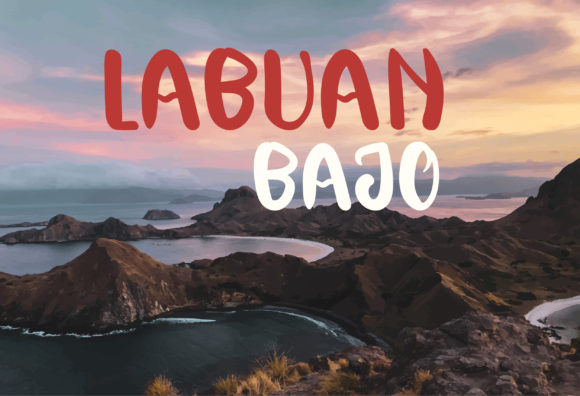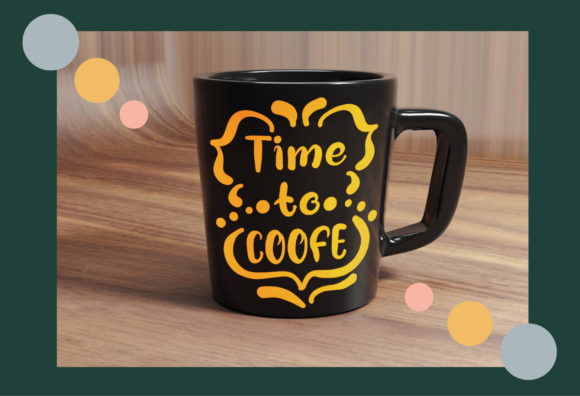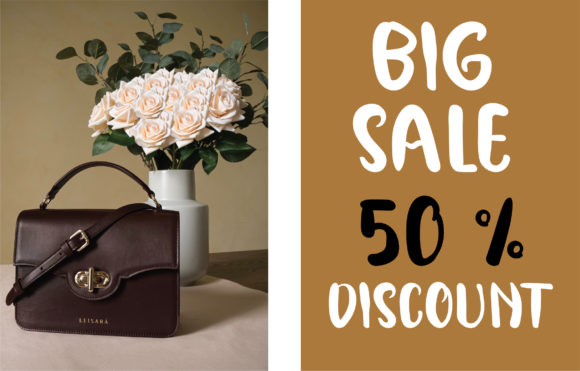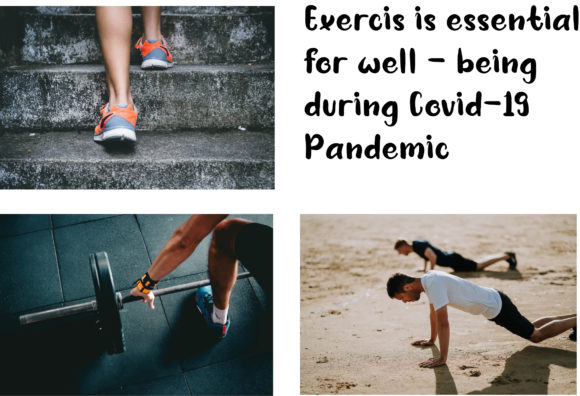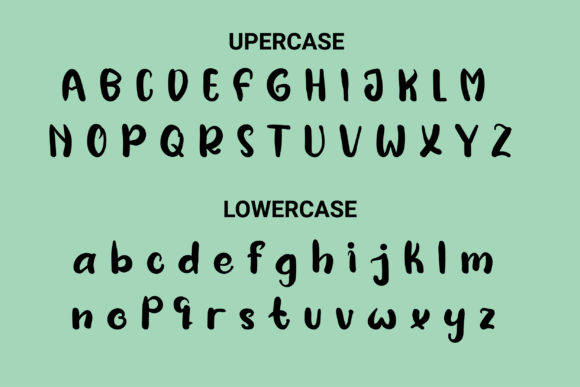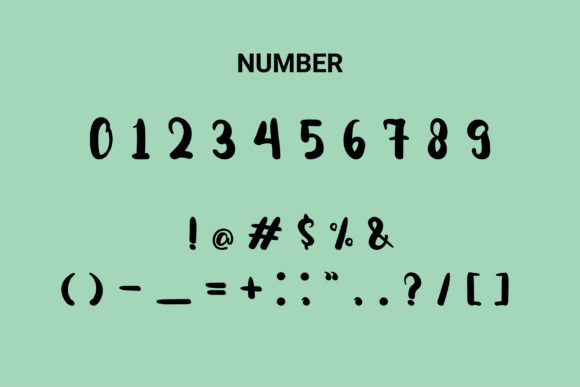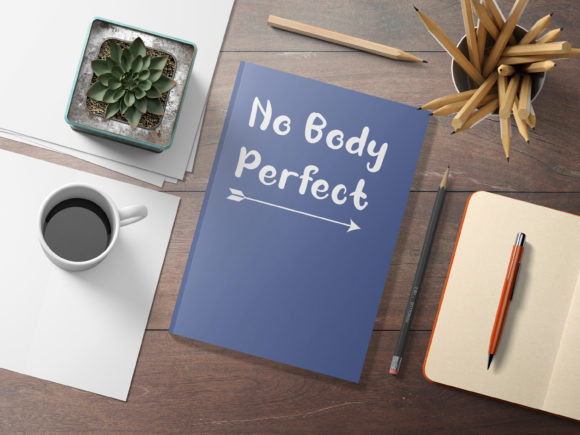
Jelita Font
About Jelita Font
Jelita is a bold yet cute handwritten font. This font fits a wide pool of designs, elevating them to the highest levels. Add this font to your favorite creative ideas and notice how it makes them come alive!